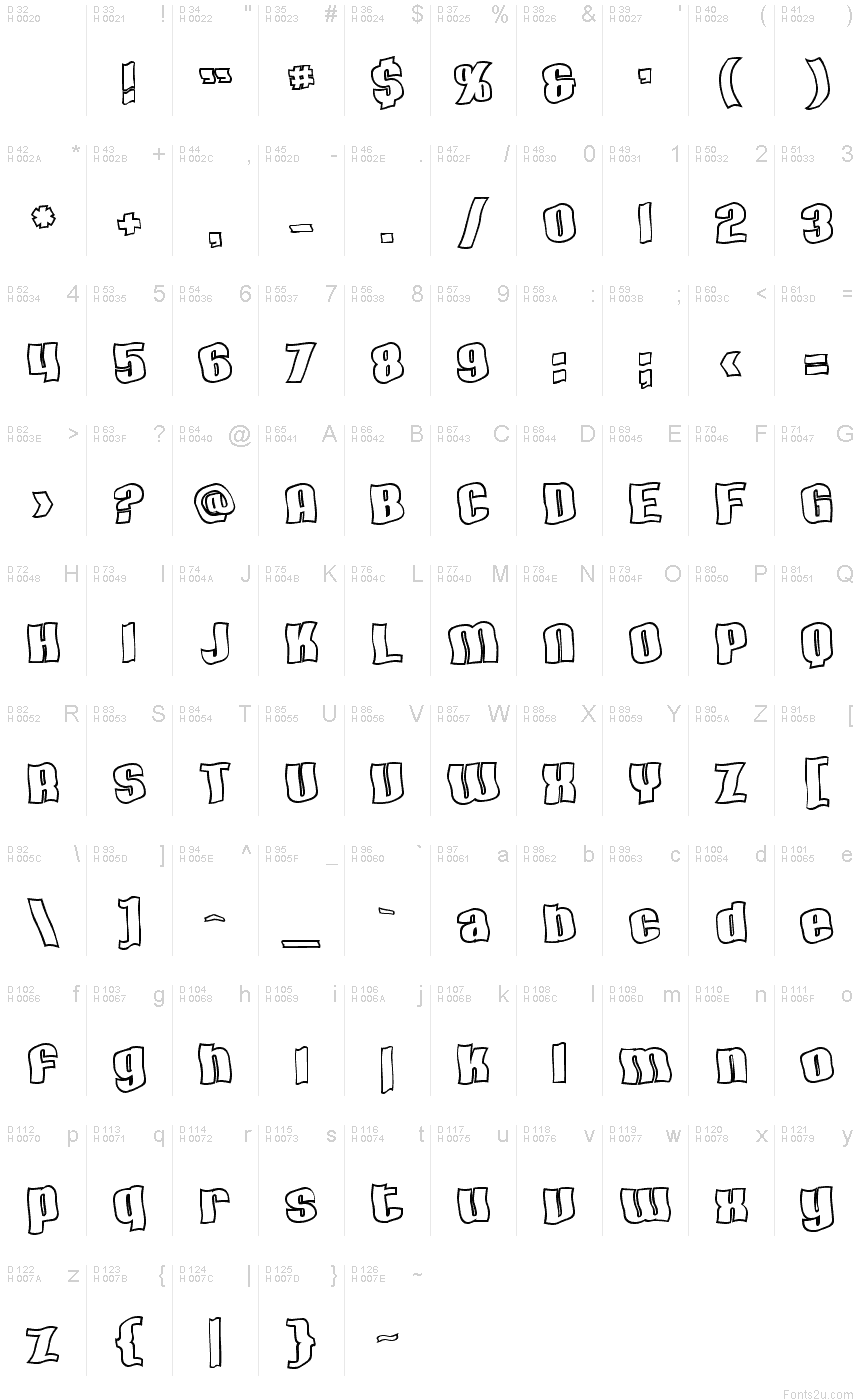
SF Hallucination Outline
SF Hallucination Outline by ShyFoundry is a free psychedelic comic outline font with letters that look swollen, rubbery, and slightly off balance. Its big outer contour and uneven, hand-warped rhythm give the font a trippy poster feel, while the soft bends keep it playful rather than aggressive.
It fits zines, party flyers, indie music artwork, cartoon title cards, and quirky packaging, especially where a free font needs instant attitude from just a few words. Because the letters feel stretched and hallucinated rather than neat, it works best in short headlines, cover lines, and logo-style wording where that loose outline can do the talking.